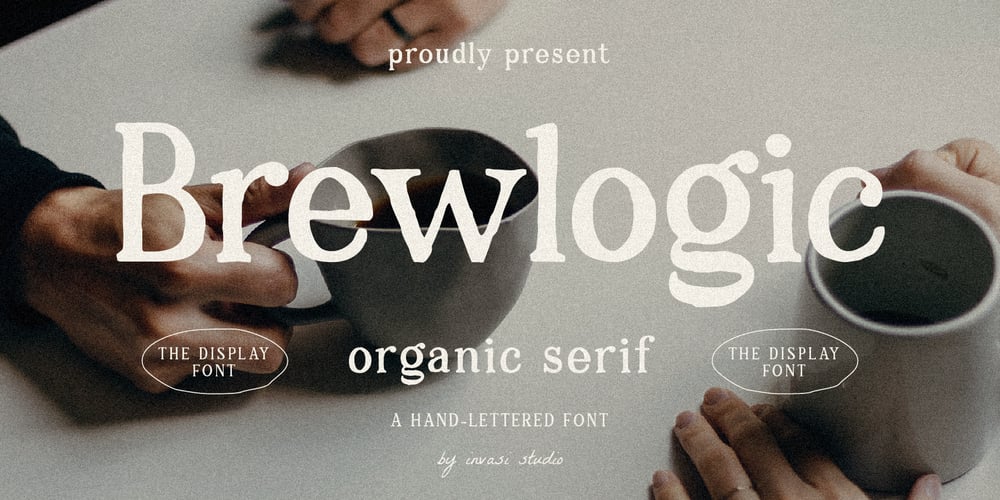
Brewlogic
Brewlogic font
Brewlogic Font Family was designed by Gha Arizal and published by Invasi Studio. Brewlogic contains 1 styles and family package options. Grab your cup of coffee and enjoy the organic display font we have just for you! The Brewlogic is a hand-lettered serif font that complements the fresh new look.The best way to show your great taste is by displaying it on tags and packaging. Our organic display fonts are perfect for that, as they match your brand’s style and tone!